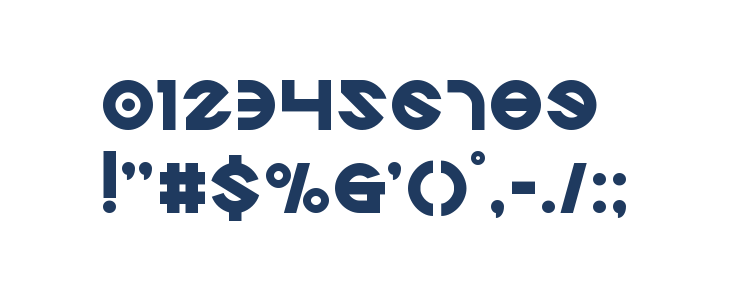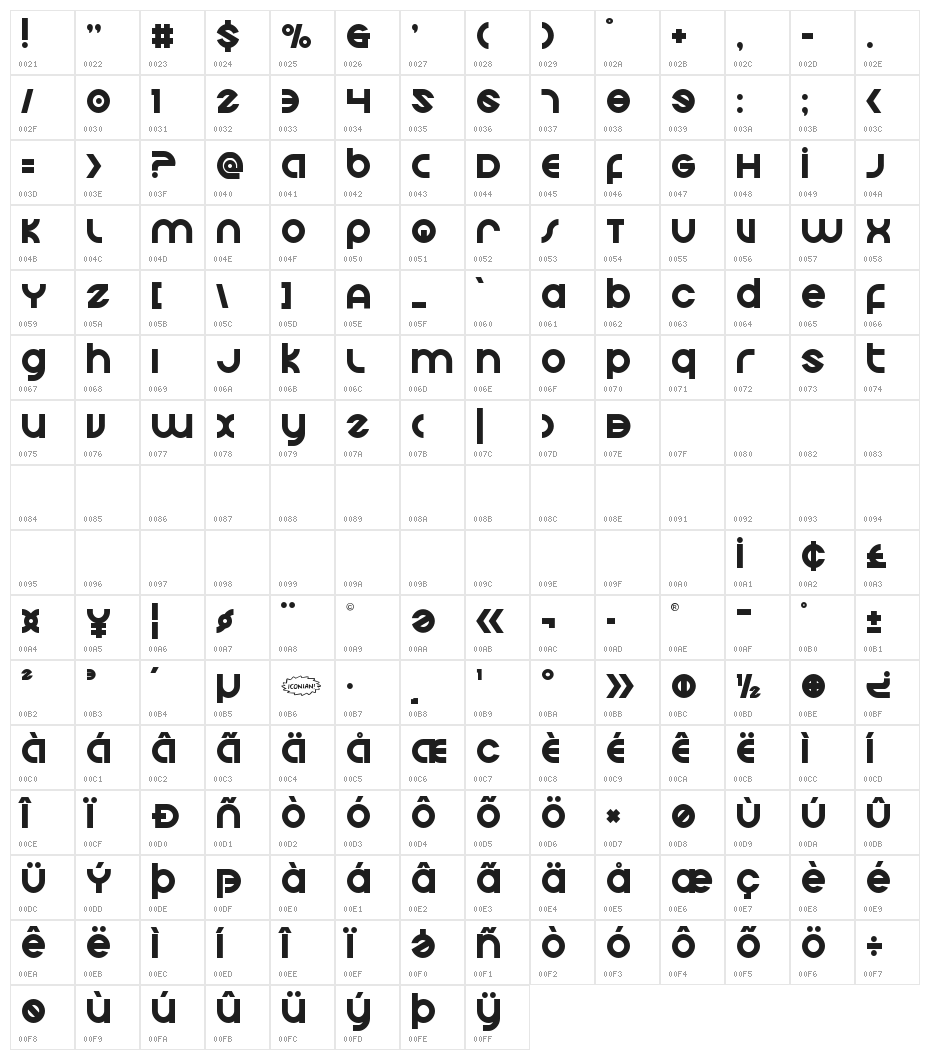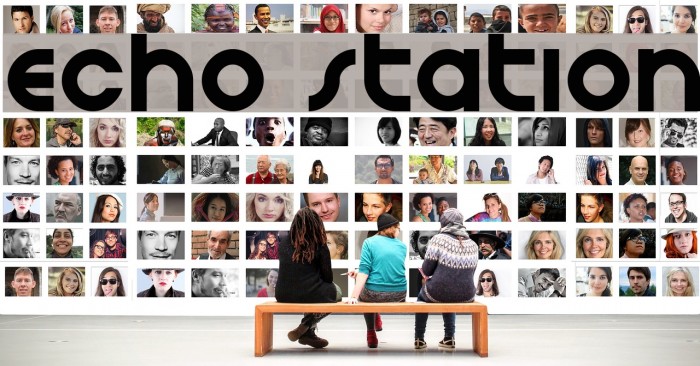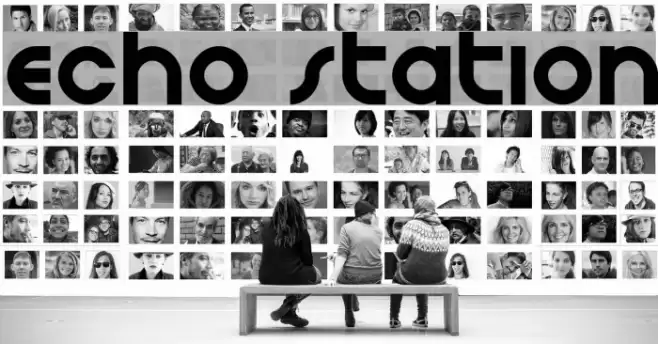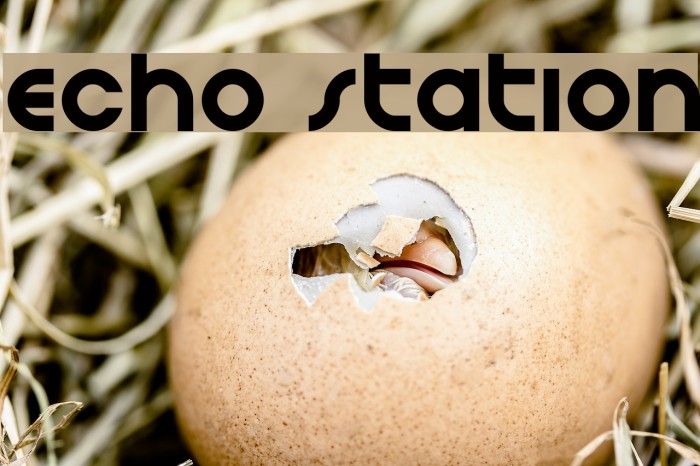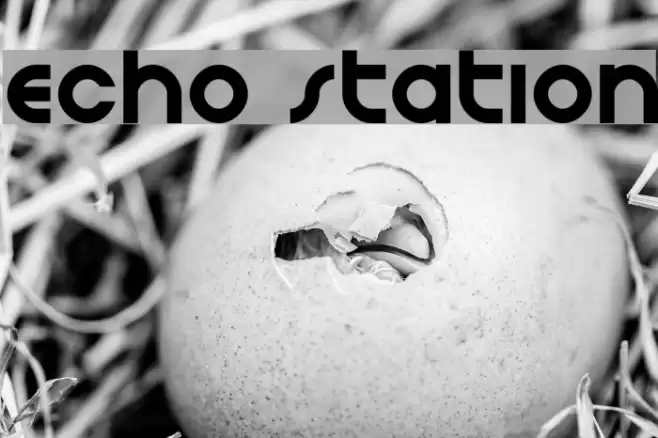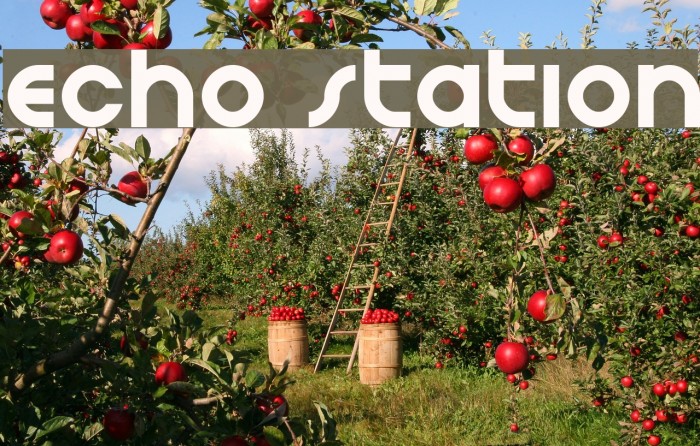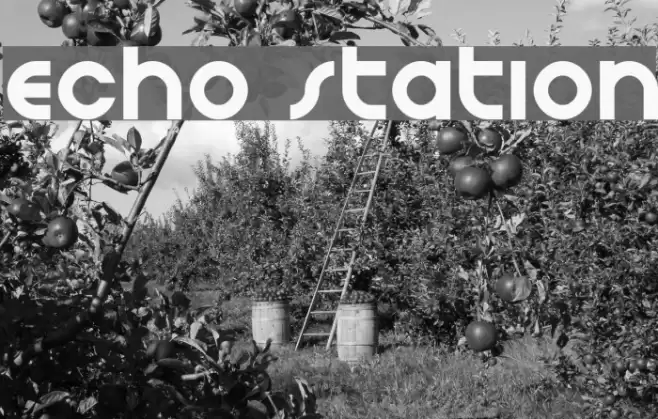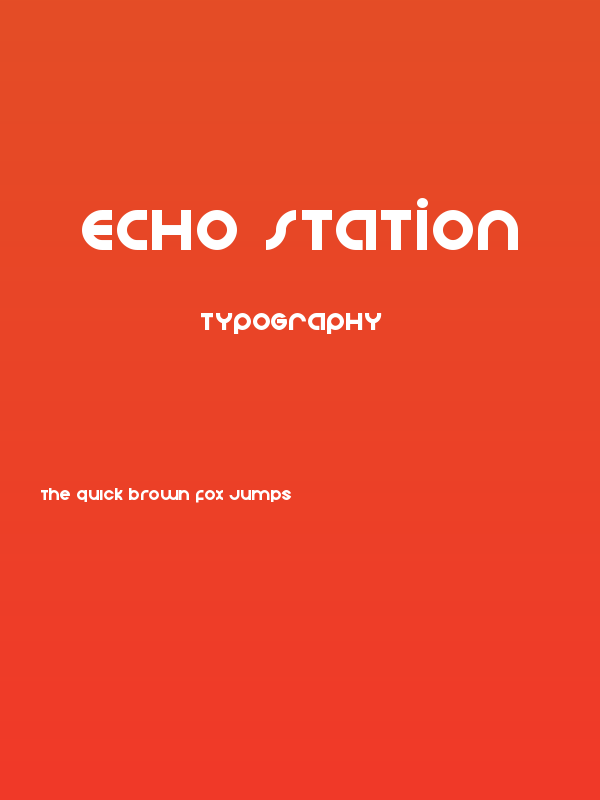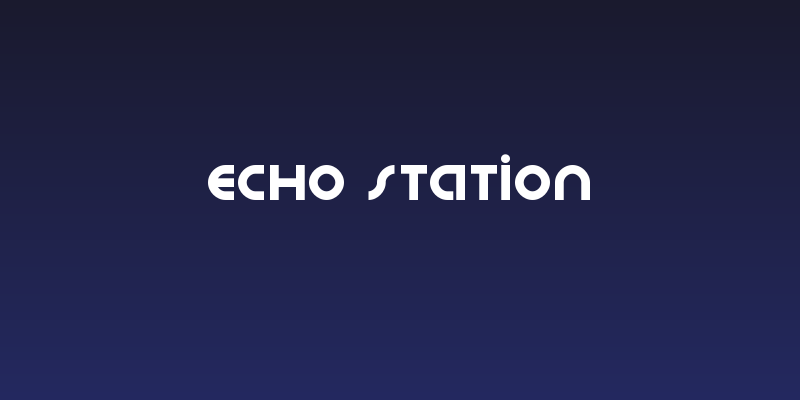
Echo Station Font
Echo Station Description
This font features a bold, geometric design with a modern and futuristic aesthetic. The characters are constructed with clean lines and circular elements, creating a sense of symmetry and balance. The uppercase and lowercase letters share a consistent style, with rounded edges and a uniform thickness throughout. Numbers and special characters maintain the same design principles, ensuring a cohesive look across all glyphs. The font's unique style makes it stand out, while still being legible and versatile for various applications.
| Proposed Projects | Ideal for technology branding, sci-fi themed designs, modern posters, and digital interfaces. |